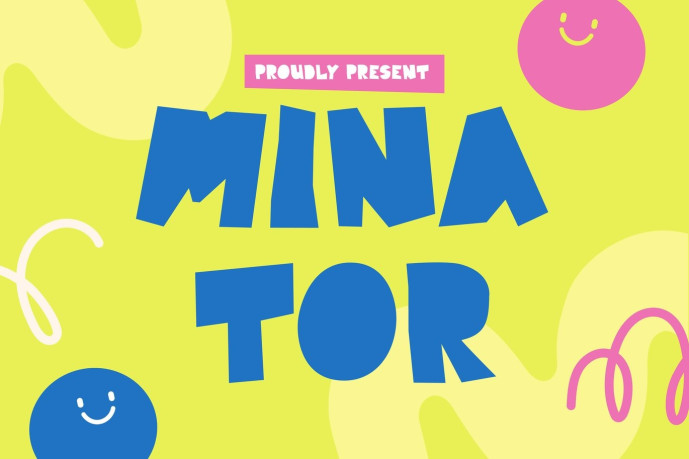
Minator – Childish Font
Minator is a playful adventure display typeface designed for children’s books, educational materials, toy branding, and creative storytelling projects. Featuring bold geometric shapes, rounded corners, playful proportions, and expressive letterforms, it creates an energetic visual personality that instantly captures attention. Inspired by the excitement of exploration and imagination, Minator helps transform simple words into fun visual adventures.
Its chunky structure and friendly character make it perfect for projects that need a cheerful, approachable, and highly engaging appearance. Whether used in storybook titles, classroom posters, learning apps, or kids-focused branding, Minator brings a sense of curiosity and excitement to every design.
Children connect with visuals that feel fun, welcoming, and full of imagination Minator helps designers, publishers, educators, and content creators build memorable experiences through playful typography that sparks curiosity. From children’s book covers and educational games to branding, packaging, posters, and social media content, Minator delivers a joyful visual voice that encourages engagement and storytelling. Its bold display style stands out across print and digital platforms, making it a strong choice for brands and creators who want their messages to feel friendly, adventurous, and easy to remember.